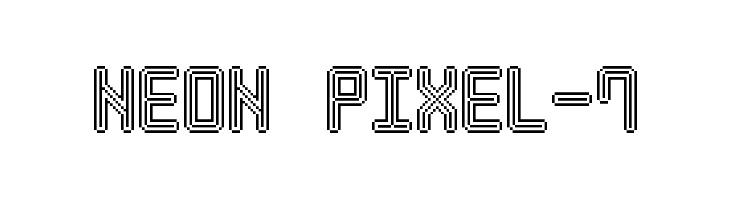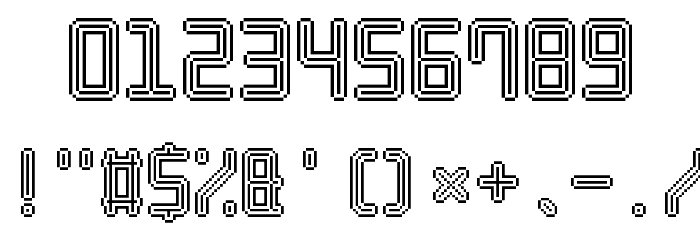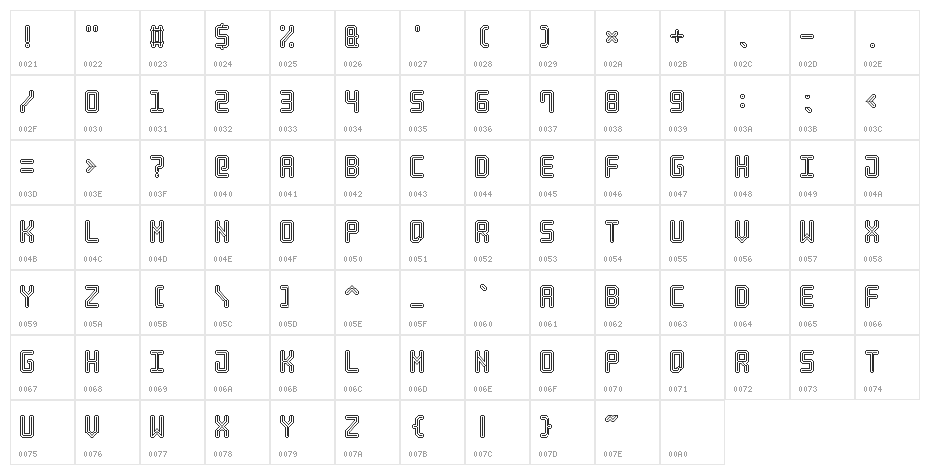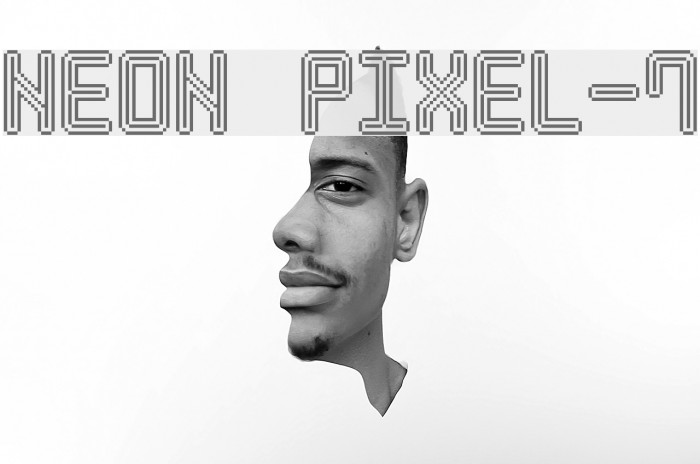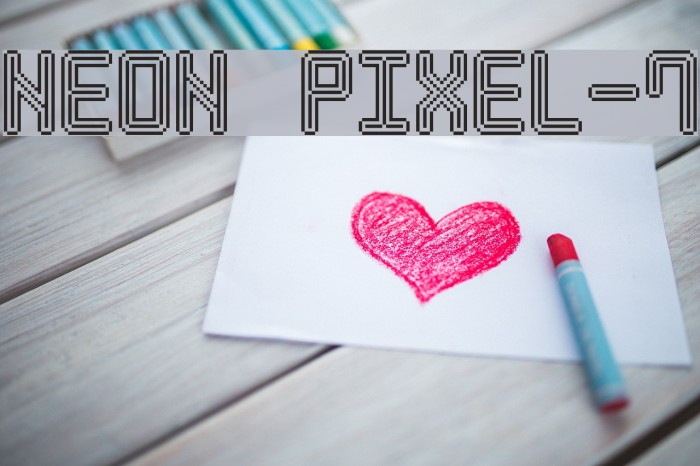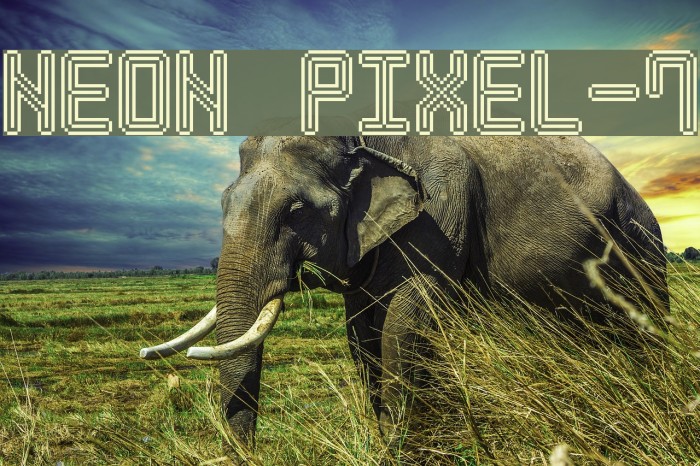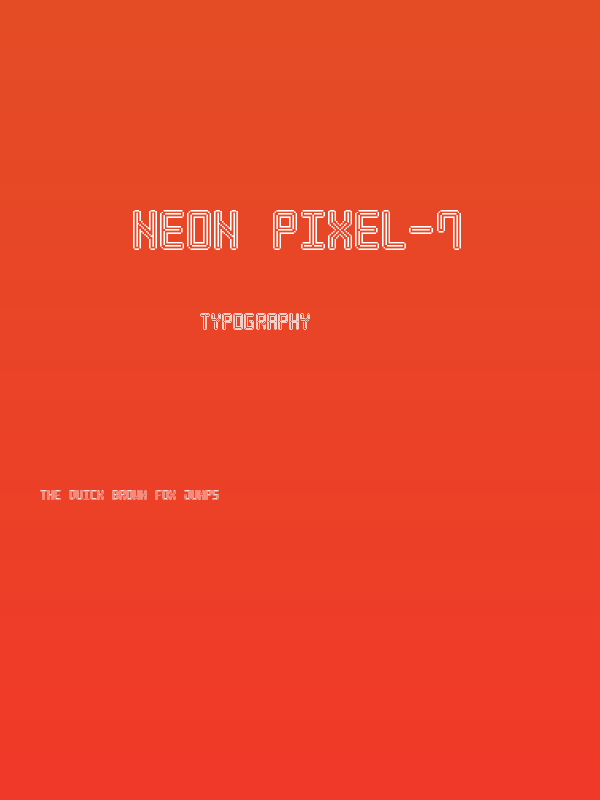
Neon Pixel-7 Font
Neon Pixel-7 Description
This font features a distinct pixelated design reminiscent of retro digital displays. Each character is constructed with a double-line structure, creating a three-dimensional effect that mimics neon lighting. The geometric shapes and sharp angles give it a futuristic and tech-inspired appearance. The uppercase and lowercase letters maintain a consistent style, with uniform height and width, enhancing readability. Numbers and special characters follow the same design principles, ensuring a cohesive look across all elements. This font is ideal for projects that aim to evoke a sense of nostalgia or a digital aesthetic.
A pixelated, neon-inspired font with a retro digital aesthetic from Uncategorized fonts.
- Proposed Projects: Ideal for video game graphics, tech-themed posters, digital art projects, and retro-style branding.
- Overall Style: Modern, Retro
- Use Case: Headlines, Logos, Digital Displays